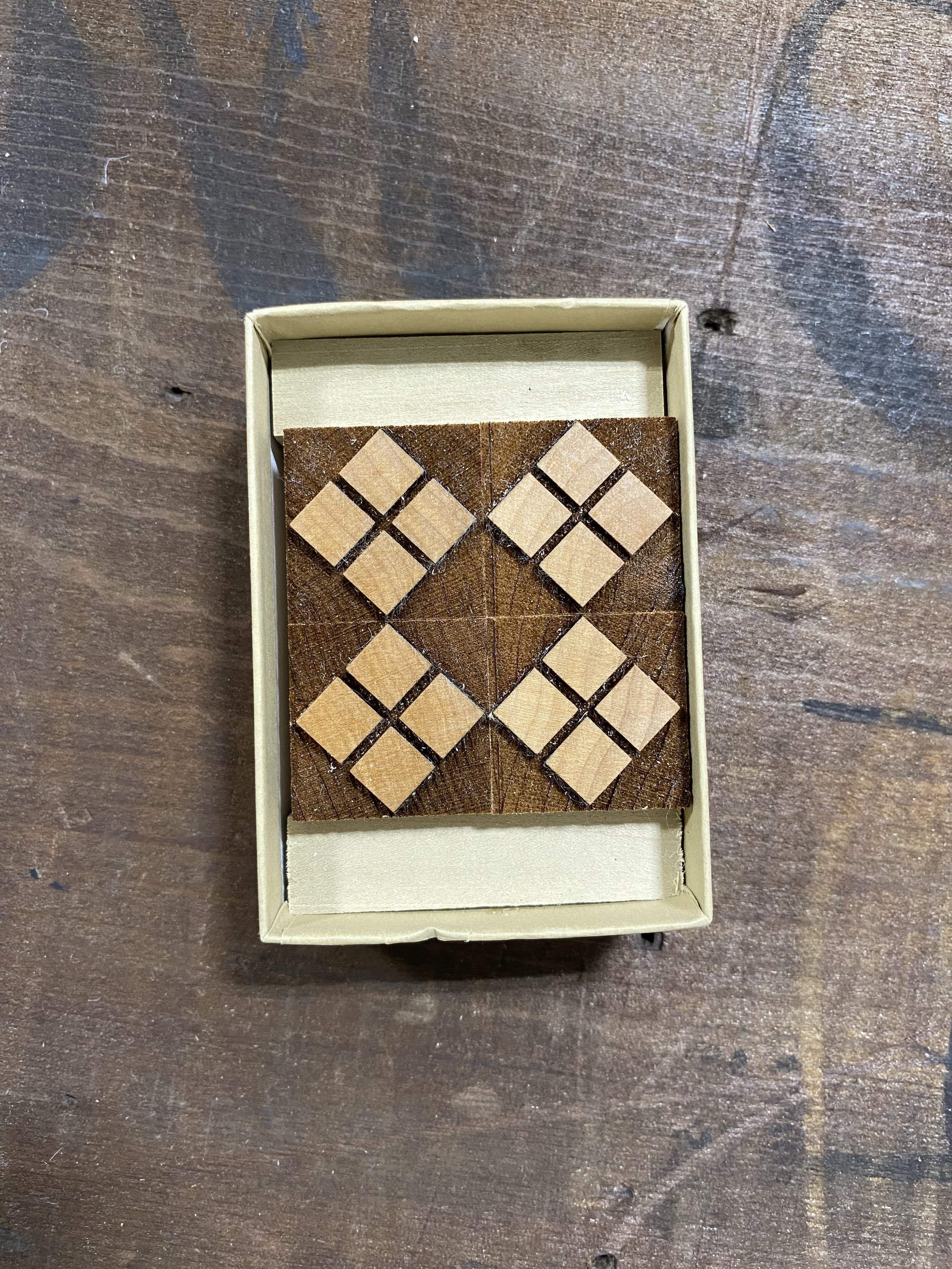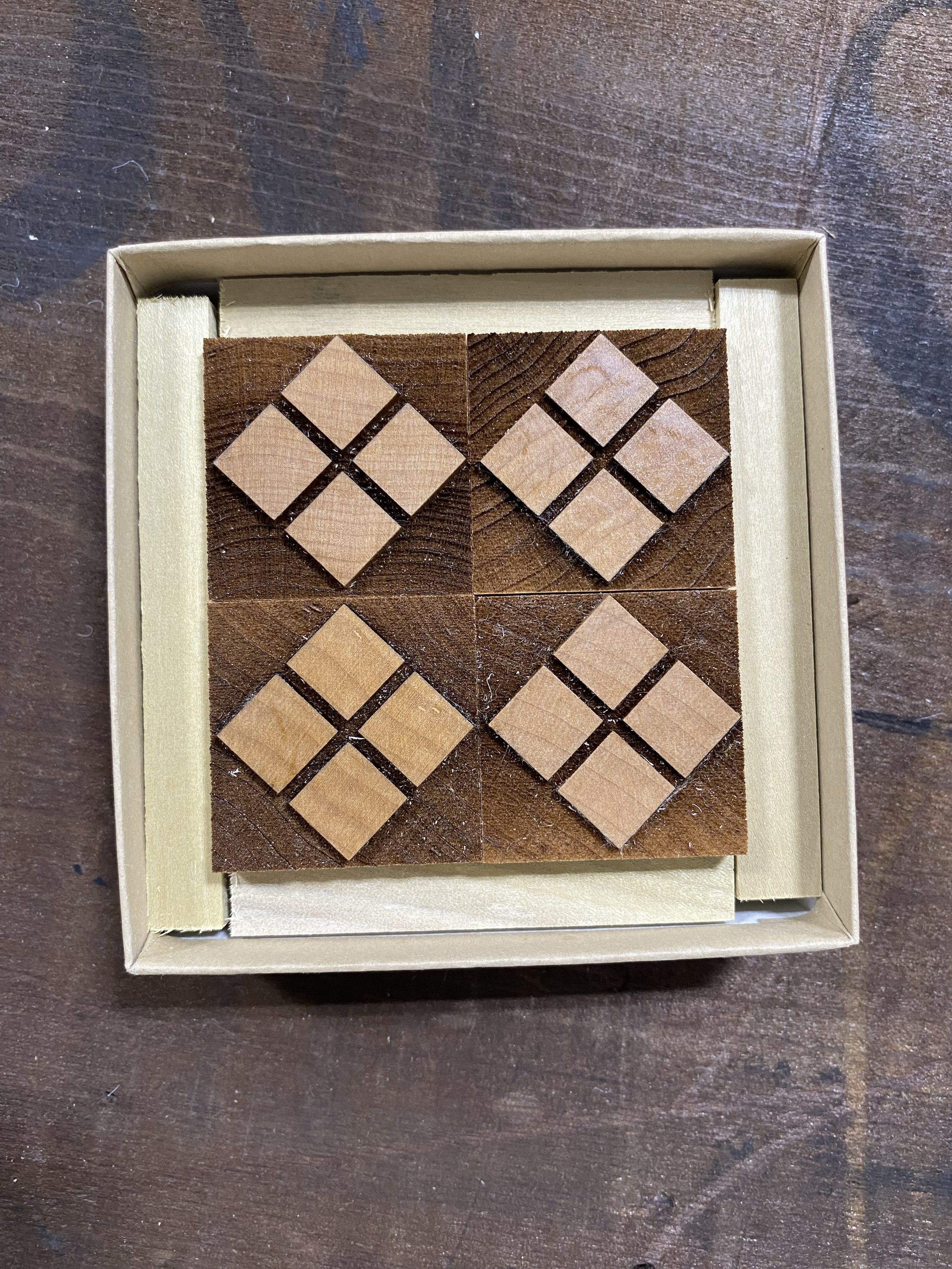
Designed & cut by Scott Moore
Material & Specs:
Laser cut
End grain maple
American Type high (.918")
Traced from a Haddon & Caxton specimen book (UK) in Gregory Walters’ collection, these four-square diamonds are often used in corners—but I see them printed just as often as hyphens or lined up into repeating patterns. Grouped in sets of four. Great for borders, dividers, or corner treatments.